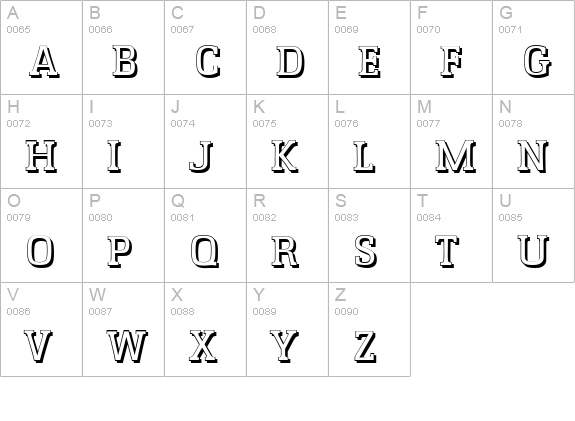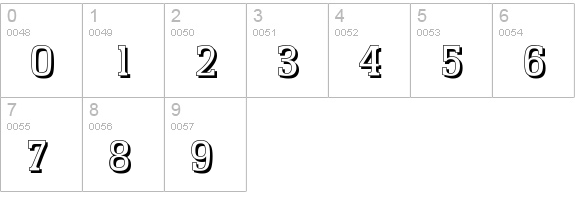
EnschedeShadow-Regular Font Details
EnschedeShadow-Regular is the standard, neutral variant in the EnschedeShadow typeface family \xE2\x80\x94 well suited to general body text, paragraphs, and standard typographic work.
EnschedeShadow-Regular is a striking and versatile font that exudes elegance and sophistication. With its sleek lines and modern aesthetic, this typeface is perfect for a wide range of design projects, from branding to web design. The unique shadow effect adds depth and dimension to any text, making it stand out and capture the viewer's attention. What sets EnschedeShadow-Regular apart is not only its stunning design but also the fact that it is completely free to download. That's right, you can access this beautiful font at no cost on FontsMarket.com. Whether you're a professional designer or a hobbyist looking to elevate your projects, EnschedeShadow-Regular is a must-have addition to your font library. Download it today and watch your designs come to life with this exceptional typeface.